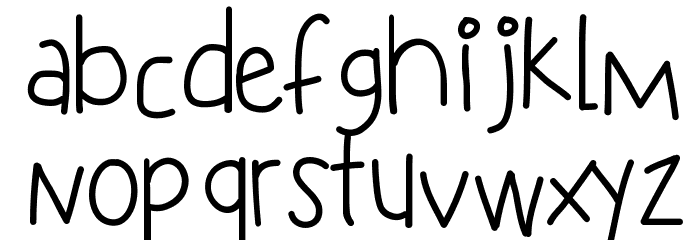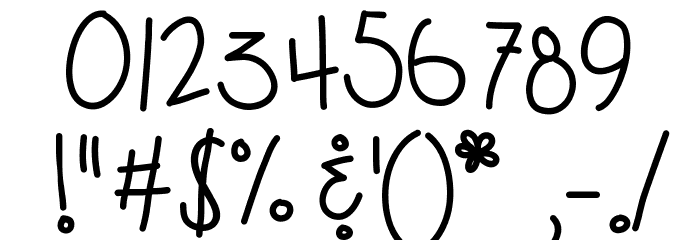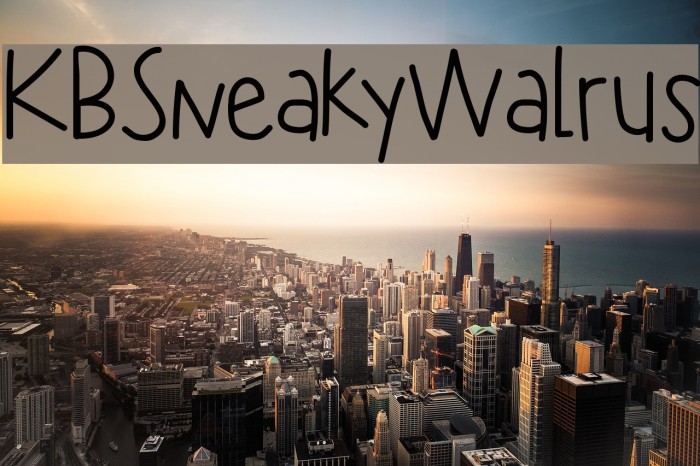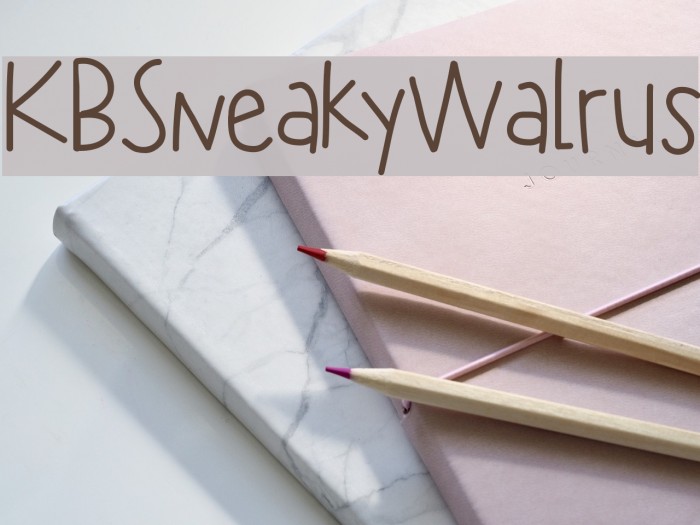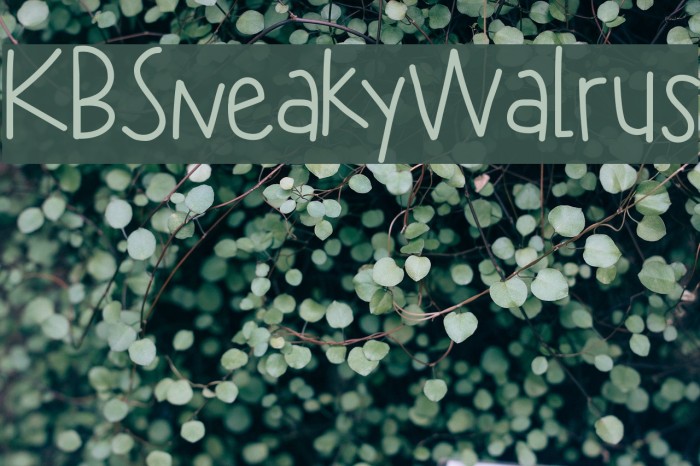
KBSneakyWalrus Font
This playful and whimsical font features a handwritten style with a casual and friendly appearance. The characters are slightly irregular, adding a personal touch that feels both approachable and informal. The strokes are consistent in thickness, providing a uniform look across all letters and numbers. The font includes a full set of uppercase and lowercase letters, numerals, and a variety of special characters, making it versatile for different uses. Its rounded edges and smooth curves contribute to its easygoing and relaxed vibe, making it suitable for projects that aim to convey warmth and friendliness.
- Proposed Projects: Ideal for children's books, greeting cards, casual branding, and social media graphics.
- Overall Style: Casual, Playful
- Use Case: Headlines, Informal text, Creative projects